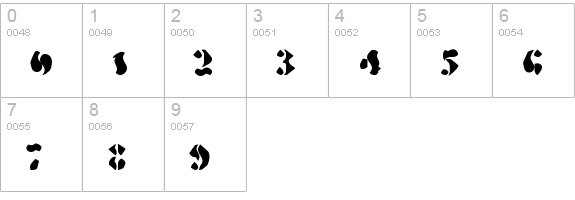
Introducing Wavy Optickal, a captivating and versatile font that will instantly elevate your designs to new heights. With its unique and eye-catching wavy letterforms, this font effortlessly combines elegance and modernity, making it perfect for a wide range of creative projects. Whether you're designing a logo, crafting an eye-catching poster, or creating stunning merchandise, Wavy Optickal will add a touch of sophistication and originality to your work. Its bold and flowing curves give each letter a sense of movement, creating a visually dynamic and engaging composition. Not only does Wavy Optickal make a statement with its striking design, but it also offers a sense of freedom and accessibility. This font is freely available to download at FontsMarket.com, allowing designers of all backgrounds to easily incorporate its unique style into their projects. With a wide range of glyphs and ligatures, Wavy Optickal offers endless possibilities for customization and personalization. Its versatility allows you to experiment with different letter combinations, giving your designs a distinct and memorable flair. Whether you prefer a clean and minimalistic look or a more vibrant and playful style, Wavy Optickal has you covered. Its clean lines and precise details make it legible at any size, ensuring your message is delivered with clarity and impact. So why wait? Unleash your creativity and discover the captivating allure of Wavy Optickal. Download this font for free at FontsMarket.com and let its wavy wonders elevate your designs to new heights.